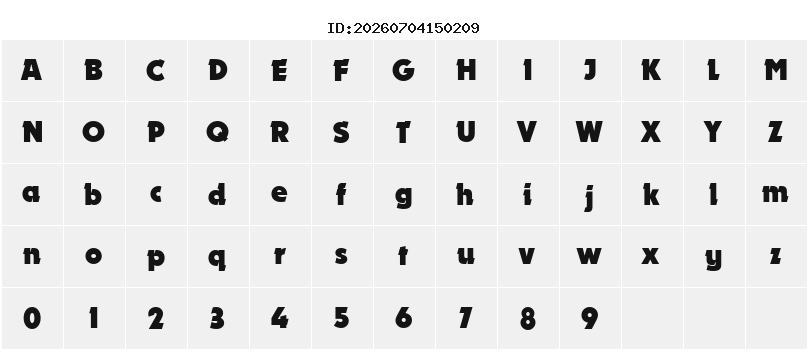
• Font Name: Durango
• Font ID: SoftMaker Software GmbH Durango-Bold
• Full Font Name: Durango-Bold
• Designer: SoftMaker Software GmbH
• Manufacturer: SoftMaker Software GmbH
Durango.ttf is a modern, elegant sans-serif font designed for ultimate readability and visual harmony. Perfect for branding, headlines, web design, and print materials.